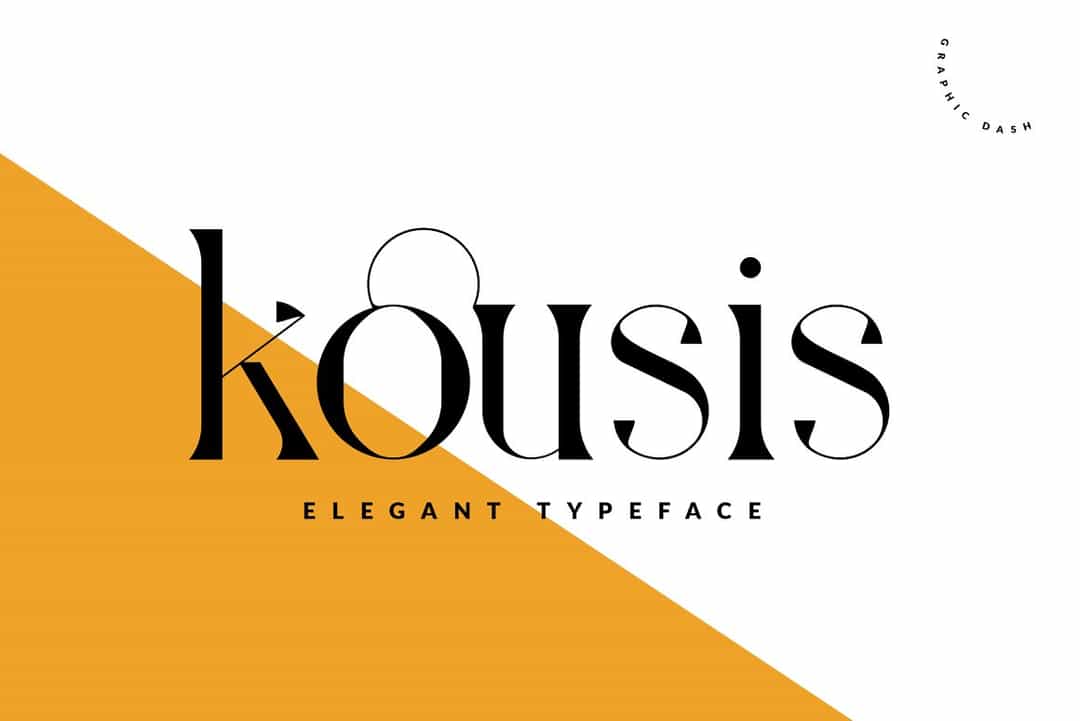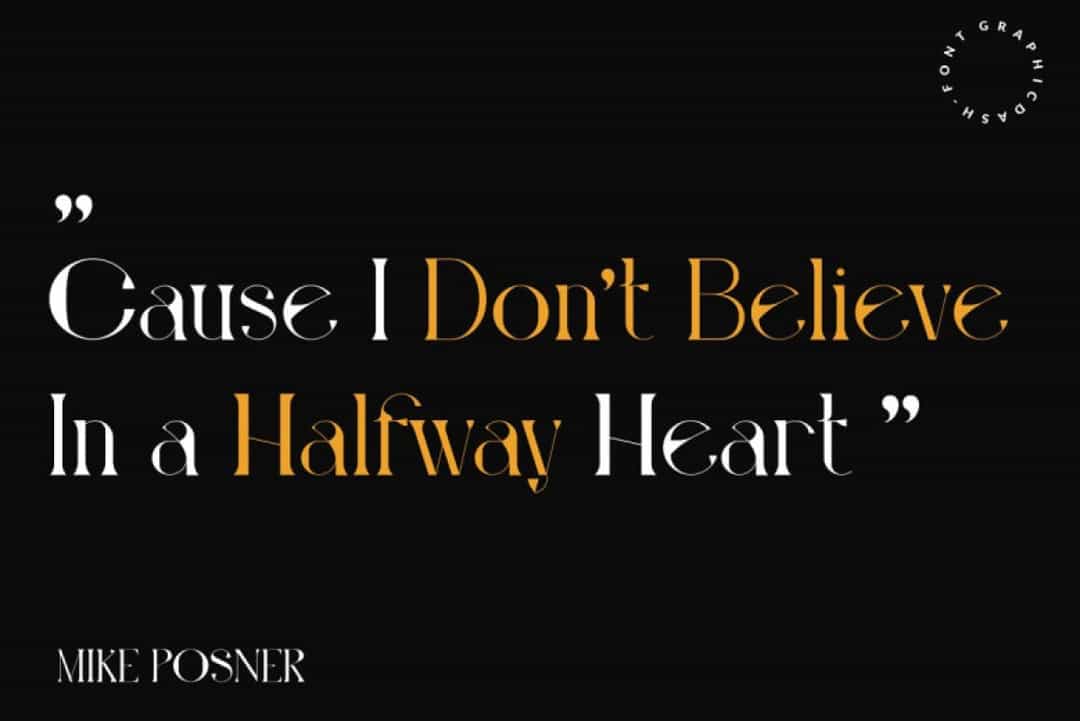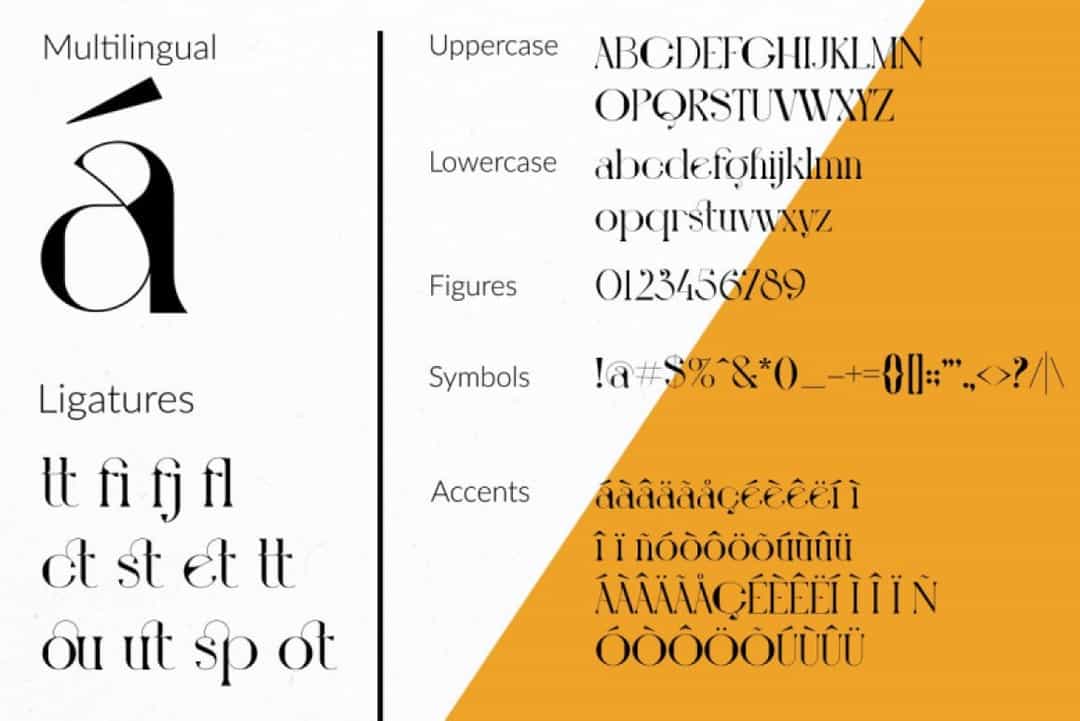
Kousis is a versatile font that has been made with delicate gracefulness as its key motif, it hasliga characters and other ligatures to offer a unique and beautiful display which is suitable for many languages. You can utilize Kousis to make logotypes that people will not forget or apply it for completing magazine layouts with a simple and elegant look.